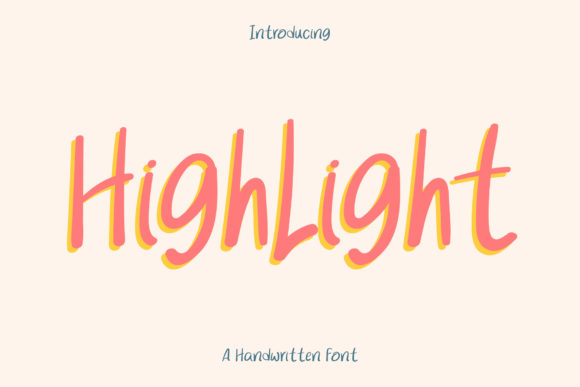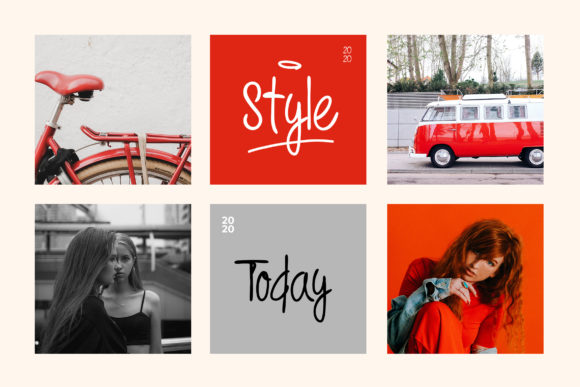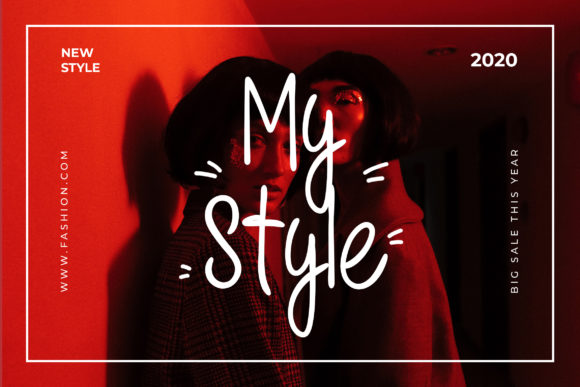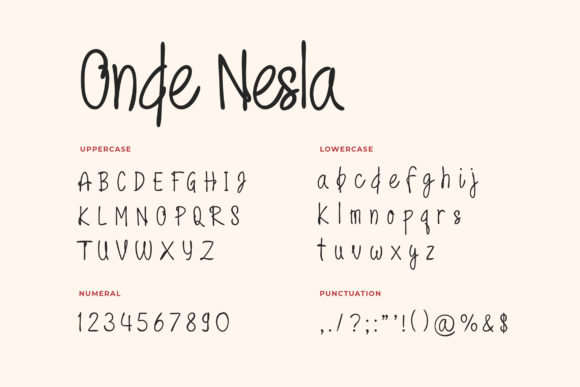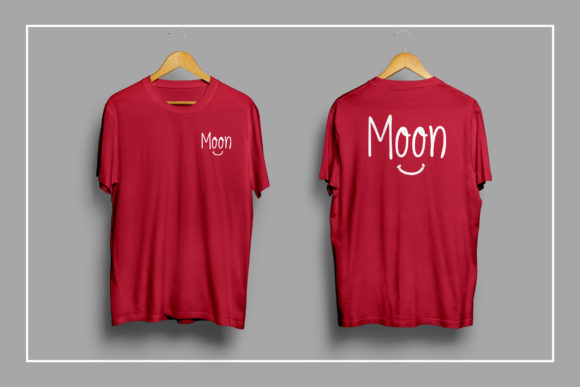
Onde Nesla Font
About Onde Nesla Font
Onde Nesla is a thin, relaxed and casual script font. No matter the topic, this font will be an incredibly asset to your fonts’ library, as it has the potential to elevate any creation.